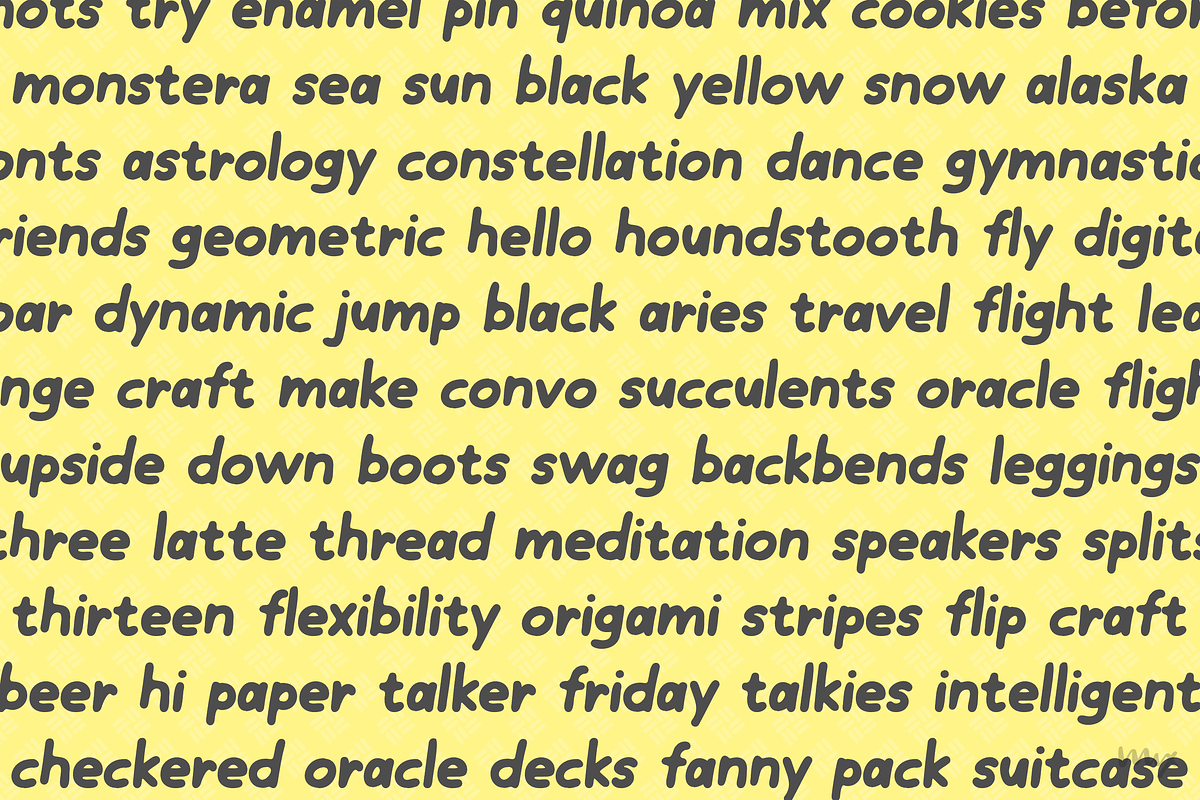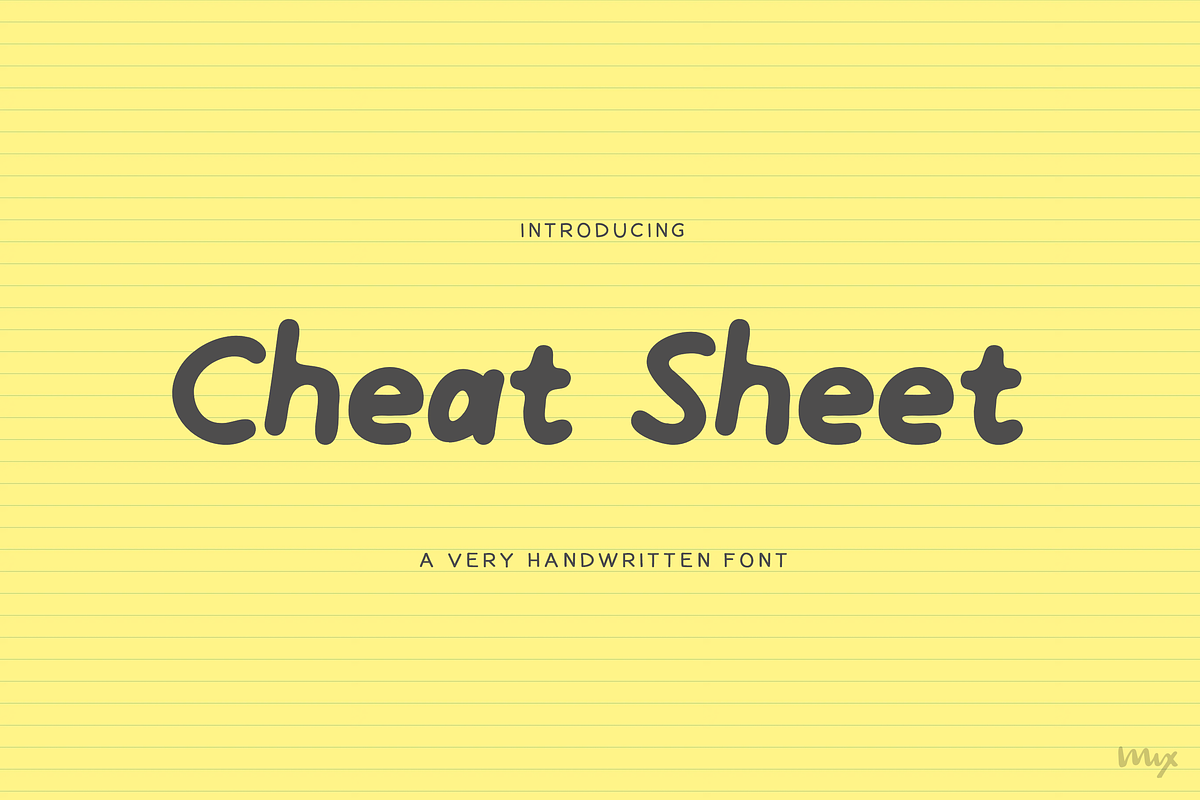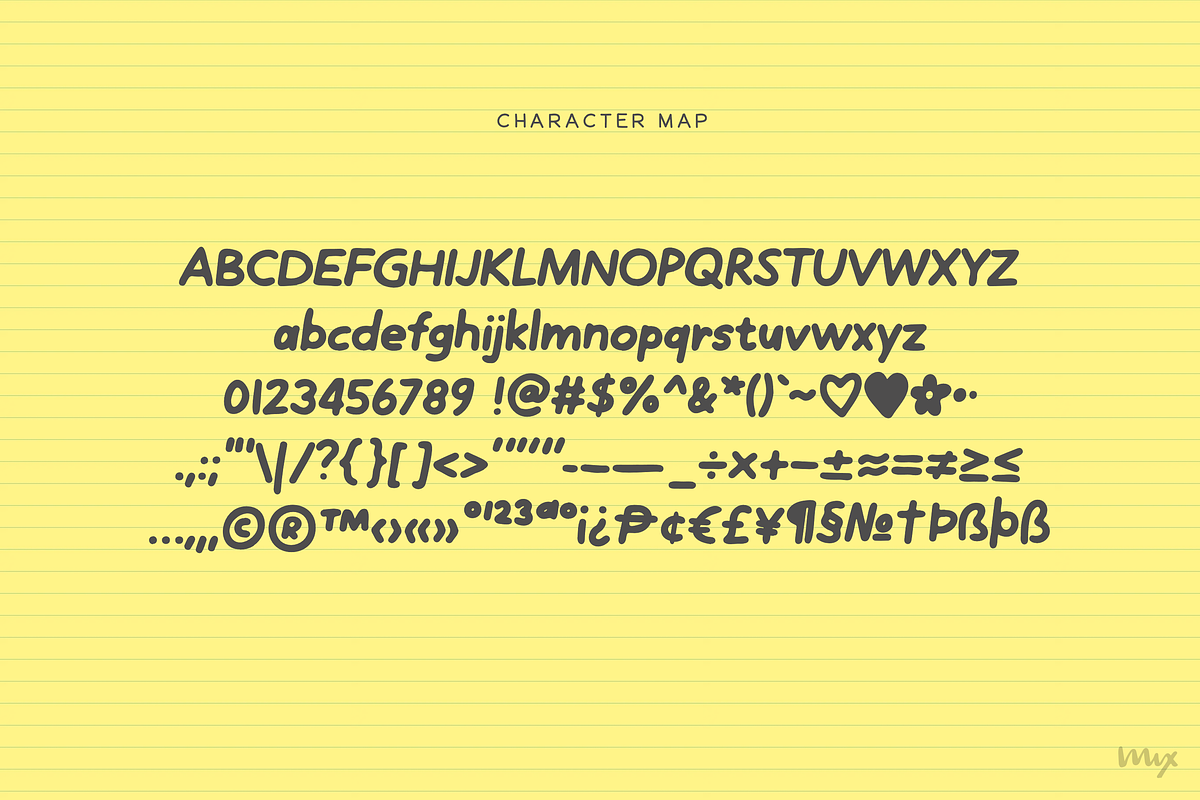
Mix Cheat Sheet
Meet CHEAT SHEET, the ultimate handwritten font that adds a personal touch to your projects. It’s like those sneaky class notes or that tiny cheat sheet (not endorsing cheating, though). This font strikes the perfect balance between a casual vibe and a clean, polished look.
Crafters and makers, this one’s for you! Get that raw, personal feel in your designs with CHEAT SHEET. It’s ideal for brands going for the “I’m your friend” vibe to add some warmth to your design projects.
With its rounded edges and balanced design, CHEAT SHEET brings that human handwritten charm without sacrificing cleanliness. It’s the handwritten font that stands out from the crowd. Capture attention, make an impact, and infuse your projects with personality. Join the handwritten revolution with CHEAT SHEET.